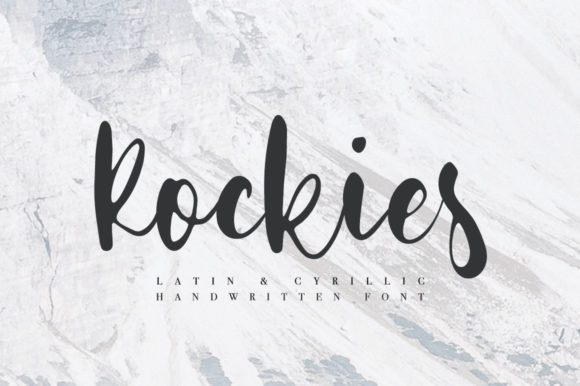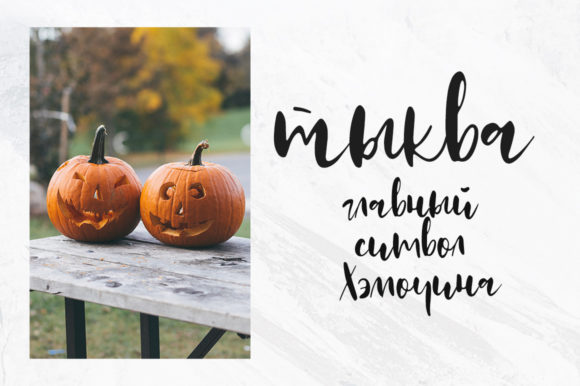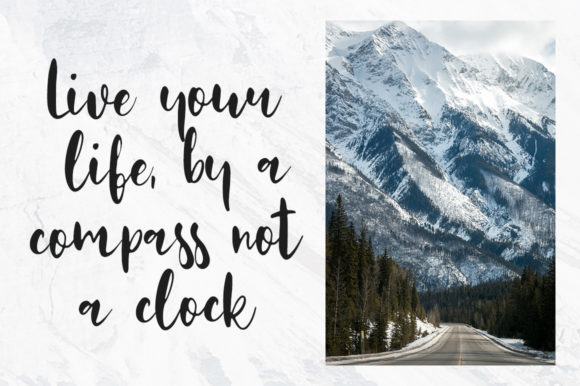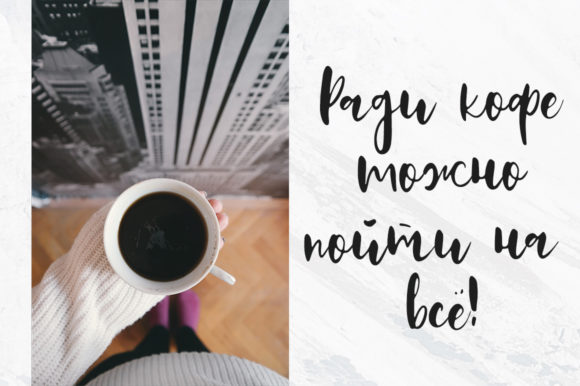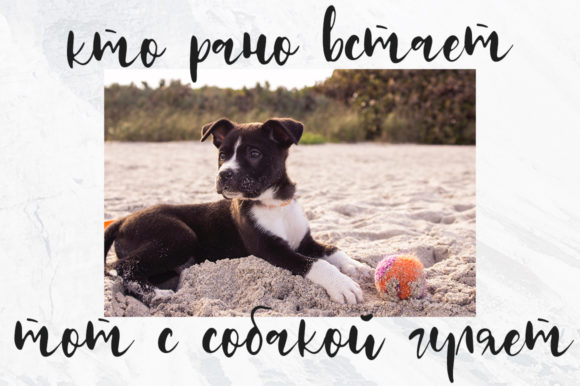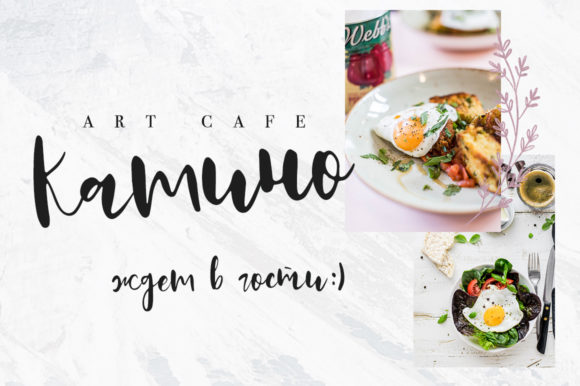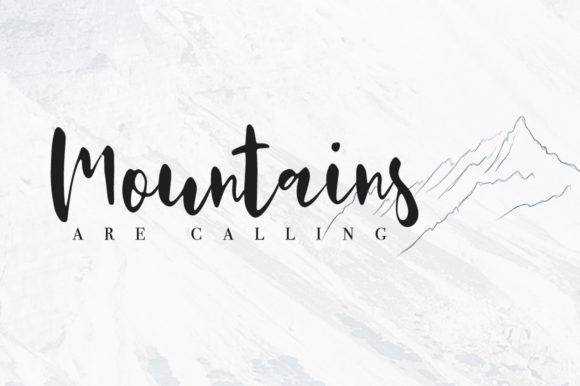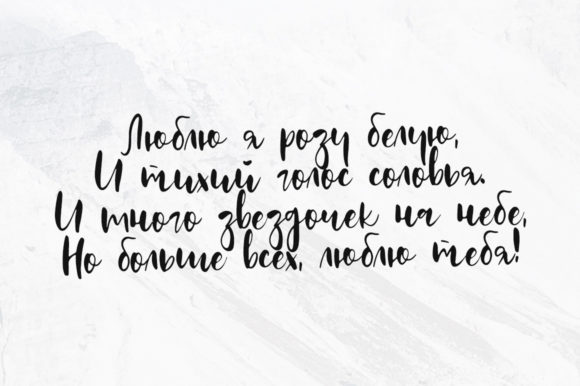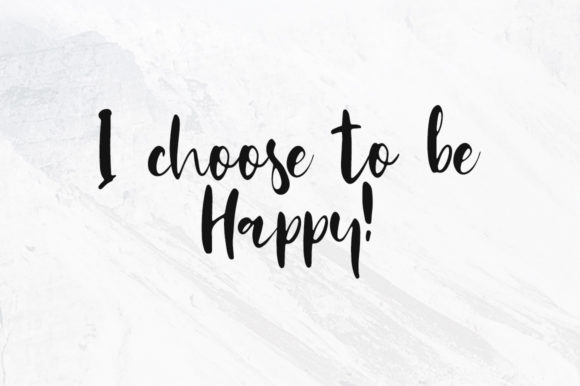
Rockies Font
About Rockies Font
Rockies is a sweet and fun script font with a lovely look. Use it to turn any design project into a true piece of art!